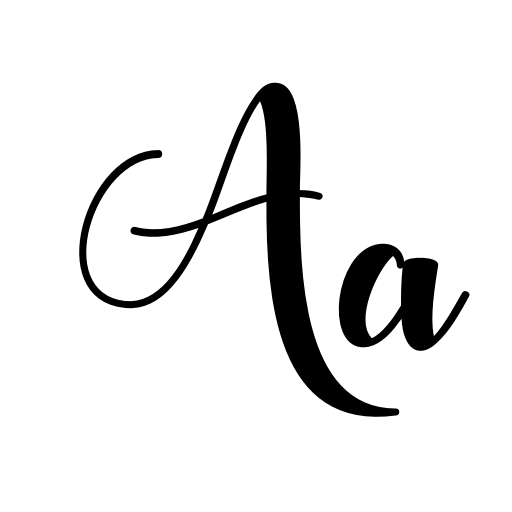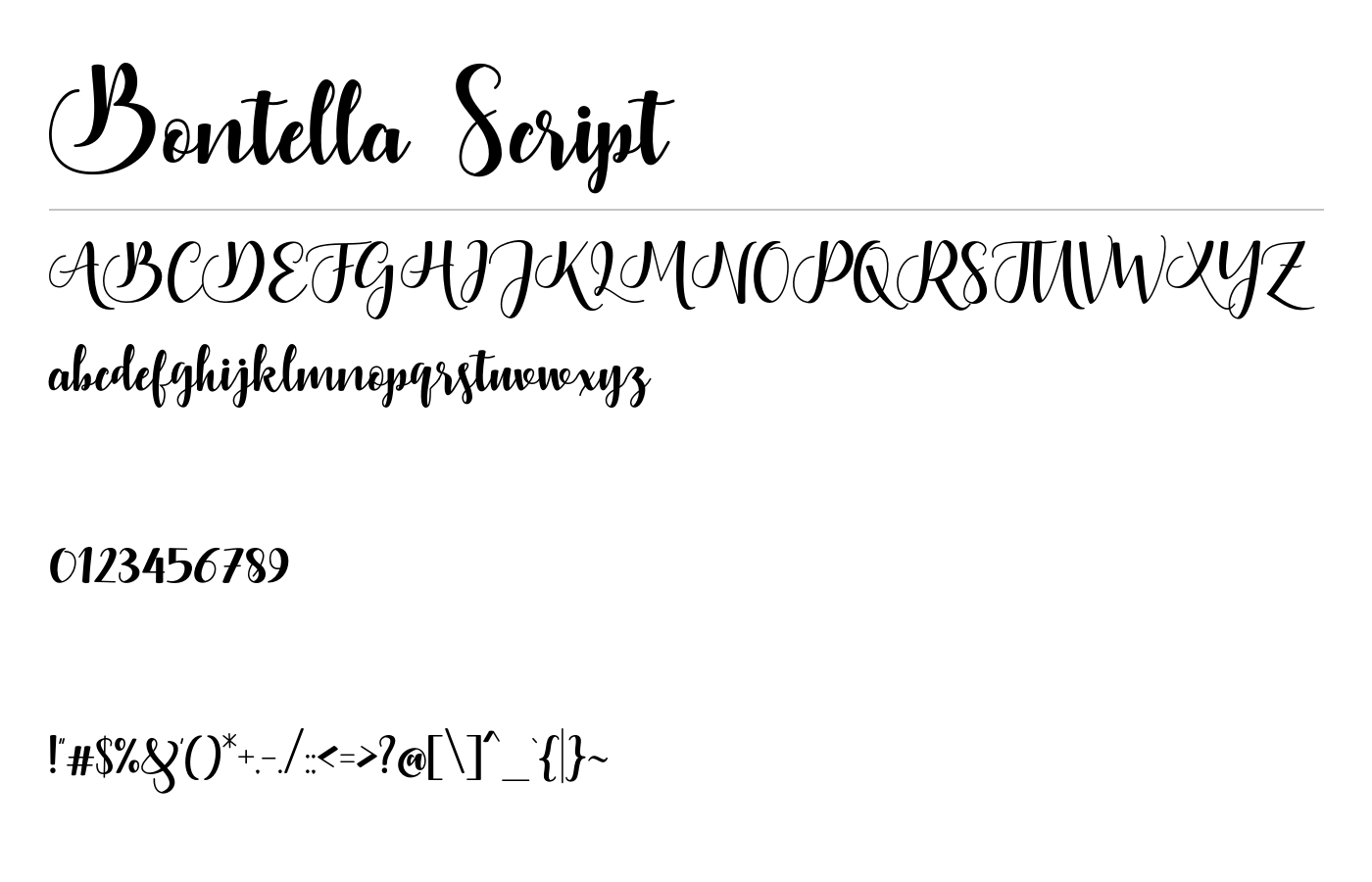
Bontella Script is an elegant, flowing script font characterized by its smooth, calligraphic strokes and charming, modern flair. It features a medium contrast in stroke weight, with refined, whimsical letterforms that blend graceful uppercase swashes and compact, rounded lowercase shapes, making it perfect for luxurious branding, invitations, and stylish headlines. This font’s unique personality adds a sophisticated yet approachable touch to projects needing a creative and feminine feel.
Bontella Script Font
About Bontella Script Font
| Font family | Bontella Script Font |
| Designer | pointlab Studio |